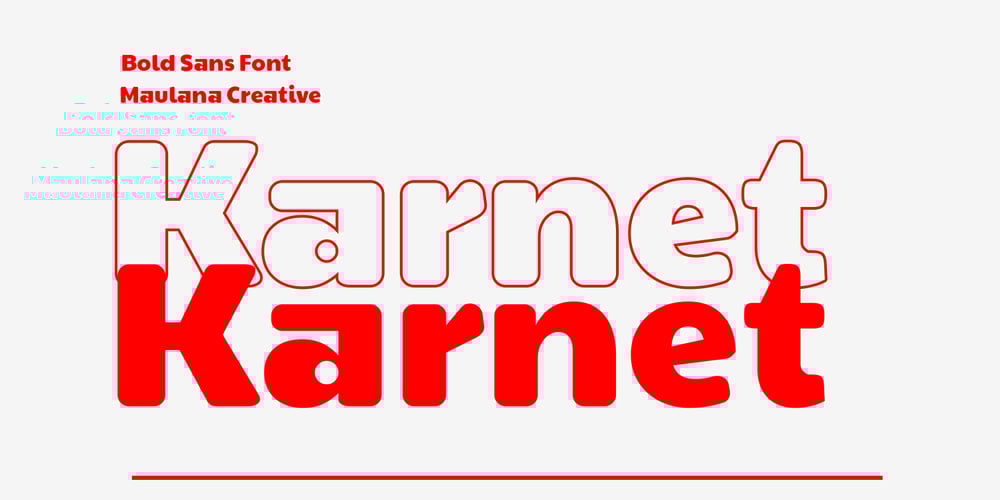
MC Karnet Font Family was designed by Gilang Maulana and published by Maulana Creative. MC Karnet contains 1 styles and family package options. Karnet is a unique sans serif font. Bold stroke, fun character with a bit of ligatures and alternates. To give you an extra creative work. Karnet font support multilingual more than 100+ language. This font is good for logo design, Social media, Movie Titles, Books Titles, a short text even a long text letter and good for your secondary text font with script or serif. Make a stunning work with Karnet font. Cheers, Maulana Creative